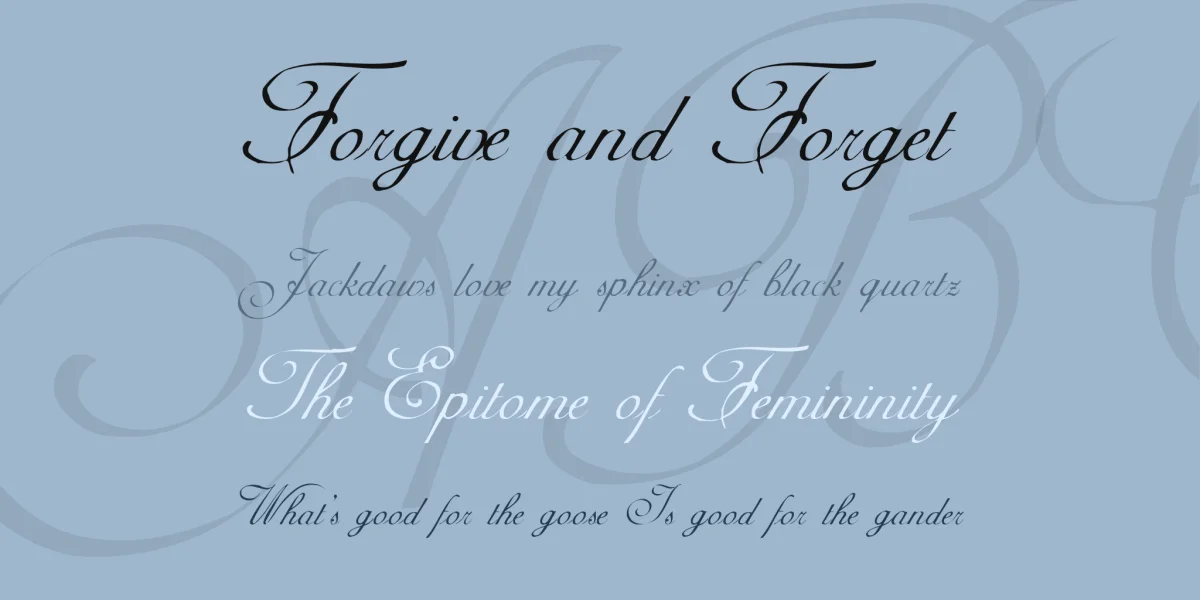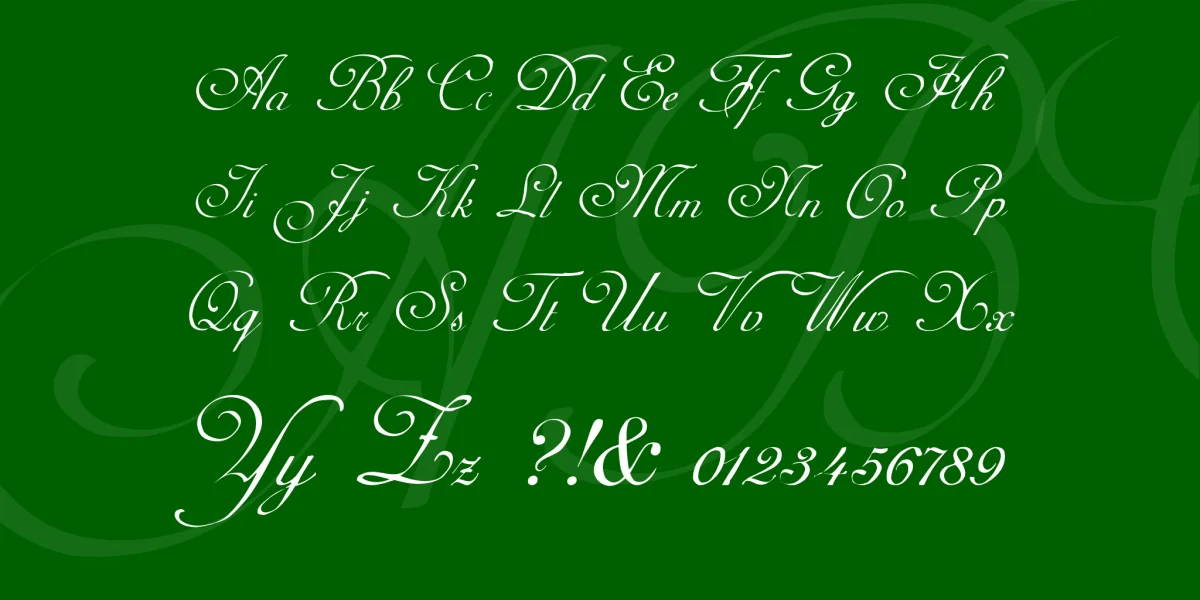
AdineKirnberg-Script font is a German Art Nouveau script font containing a full alphabet and most punctuation. It is a beuatiful, rounded script with very striking caps and relatively small lower-case characters. It is modeled on a face called Romana. In addition to the full alphabetic characters, there are alternate drawings of certain characters, as follows:
Character -- -- ASCII code
upper-case G -- 237
upper-case S -- 234
upper-case T -- 230
upper-case W -- 227
lower-case b -- 186
lower-case d -- 182
lower-case f -- 196
lower-case h -- 250
lower-case l -- 194
lower-case r -- 168
lower-case s -- 167